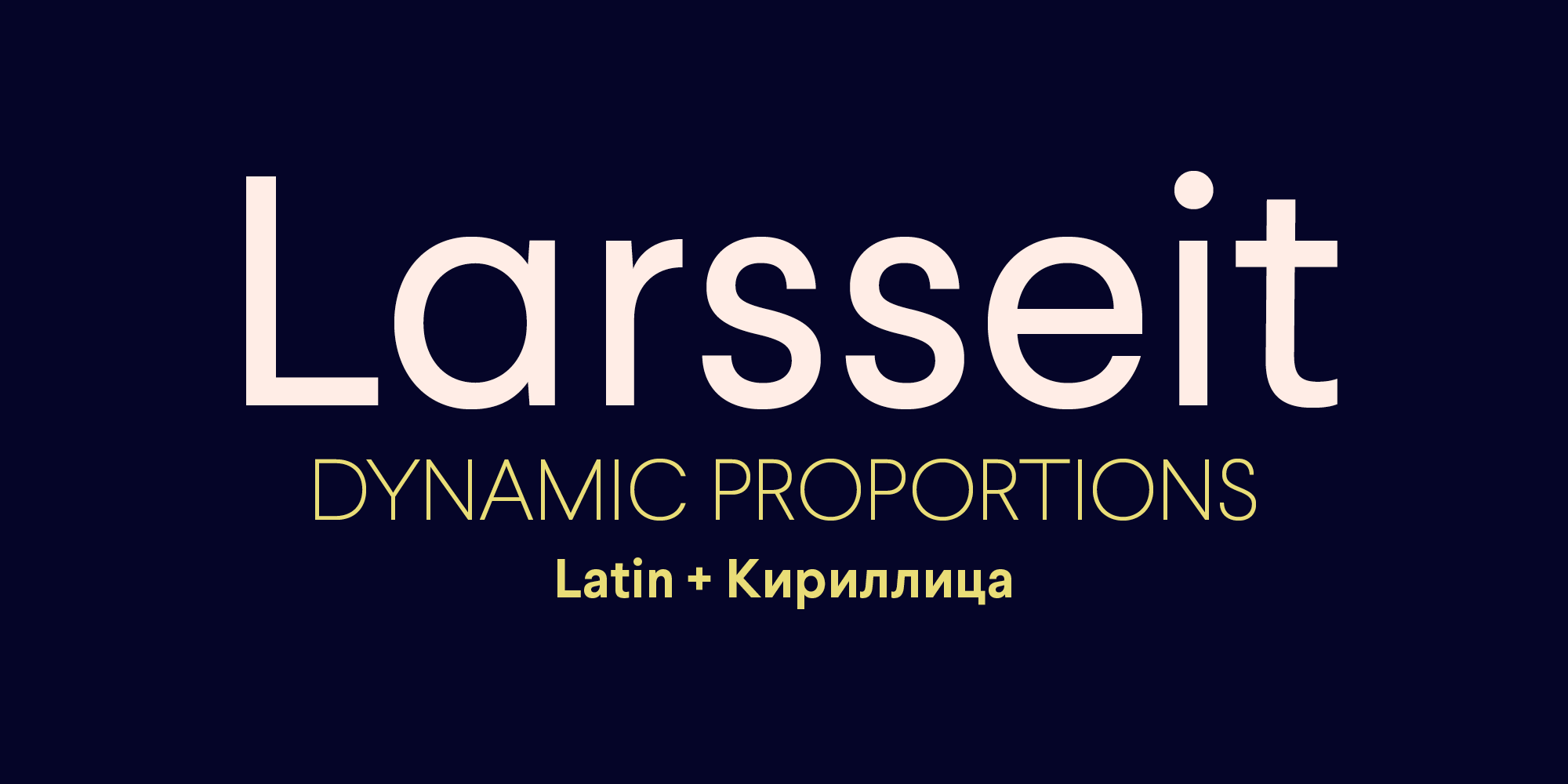
This contemporary font is perfect for tech company branding, modern corporate identities, digital interface design, minimalist web applications, professional presentations, clean editorial layouts, architectural signage, and sophisticated advertising campaigns. Its precise character makes it ideal for projects requiring clarity, functionality, and progressive design aesthetics.
Larsseit Font is exciting because it represents the pinnacle of modern sans-serif design with meticulously engineered letterforms that achieve perfect balance between geometric precision and humanistic warmth. The font features optimized spacing, exceptional legibility, and subtle character details that ensure outstanding performance across all digital and print applications. Its contemporary sophistication appeals to forward-thinking brands while maintaining timeless design principles.
The Larsseit Font family includes comprehensive weight variations from thin to black, along with matching italics and condensed versions. Many editions feature extended language support, OpenType features, and specialized glyphs optimized for international business applications and digital typography.
Whether you're developing cutting-edge technology brands, modern corporate communications, or sophisticated digital experiences, Larsseit Font Free Download provides contemporary excellence with functional reliability. This typeface transforms standard business communications into polished statements that resonate with progressive audiences who appreciate clean design and technical precision. Its versatile character ensures consistent brand recognition across all platforms while maintaining exceptional readability, making it an indispensable resource for professionals who require Larsseit Font Free Download that combines modern aesthetic appeal with proven performance standards in today's competitive marketplace.